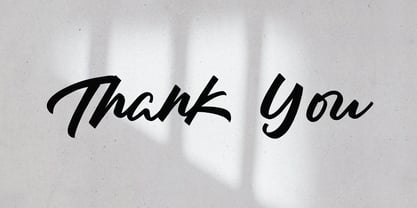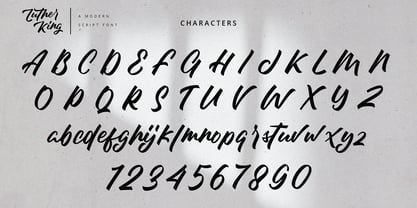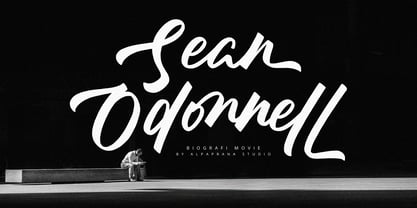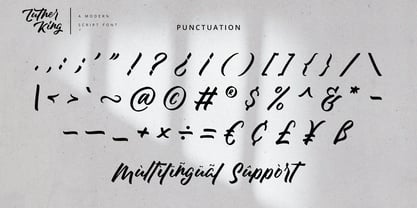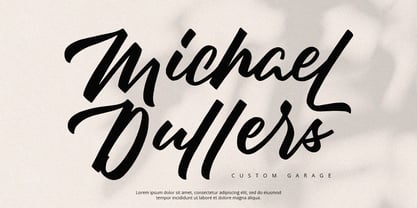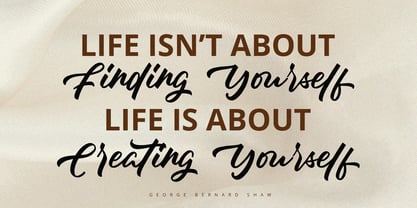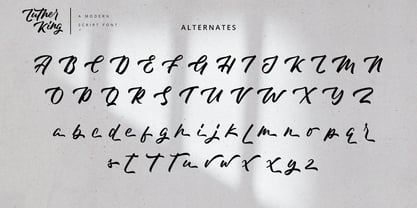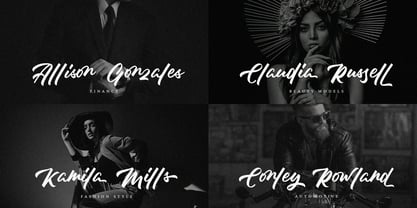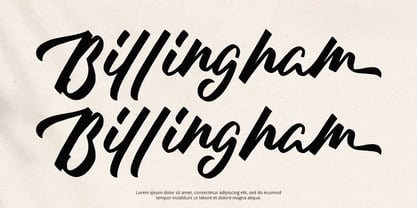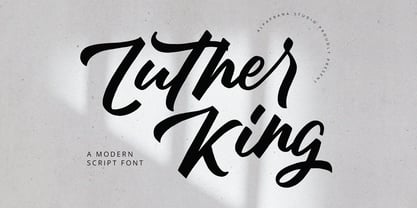
Luther King
by Alpaprana
The Luther King Font Family was designed by Nadia Salsabila and published by Alpaprana. Luther King contains 1 styles. More about this family
Designers: Nadia Salsabila
Foundry: Alpaprana